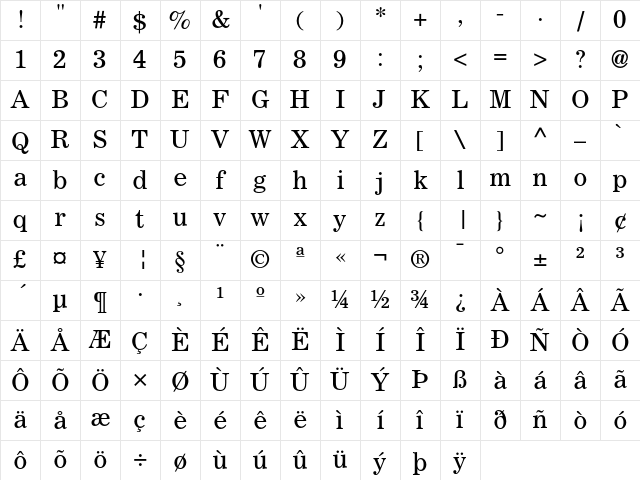
Corona Regular
Design Context for Corona
Corona is a composed and adaptable typeface that performs quietly and consistently across a wide range of design contexts.